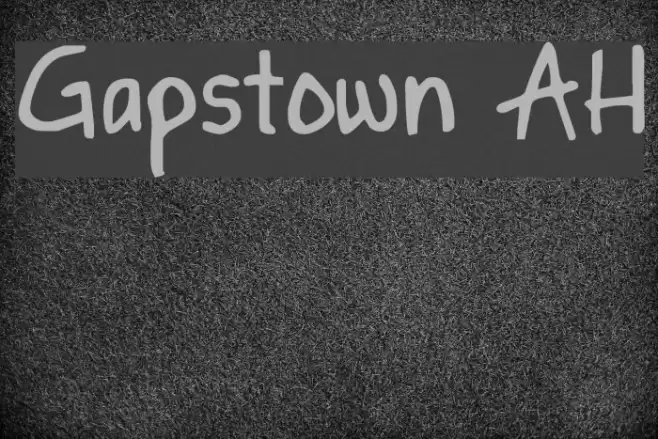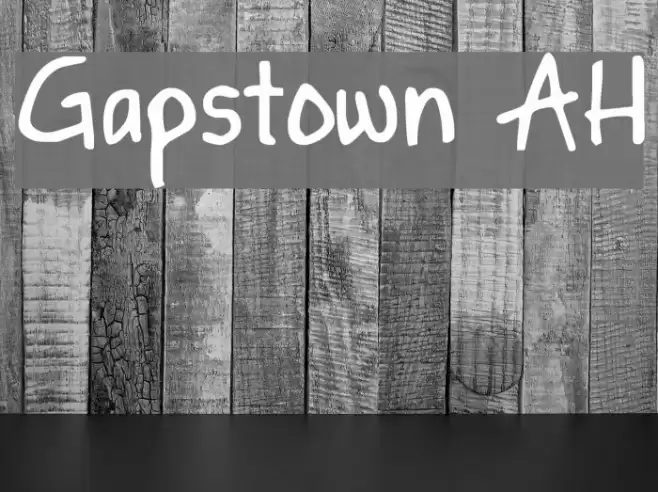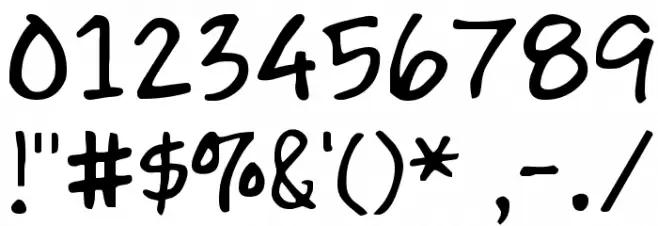
Gapstown AH Font
Gapstown AH Description
This font exhibits a playful and informal handwritten style, characterized by its uneven strokes and casual appearance. The letters are slightly irregular, giving it a personal and approachable feel. The uppercase and lowercase letters maintain a consistent style, with rounded edges and a slight tilt, enhancing its handwritten charm. The numbers and special characters follow the same aesthetic, ensuring uniformity across all glyphs. This font is ideal for projects that require a touch of personality and warmth, making it suitable for creative and informal contexts.
A playful, handwritten font with a casual and approachable style from Sans Serif fonts.
- Proposed Projects: Ideal for greeting cards, children's books, personal blogs, and informal branding.
- Overall Style: Casual
- Use Case: Headlines, Informal text, Creative projects